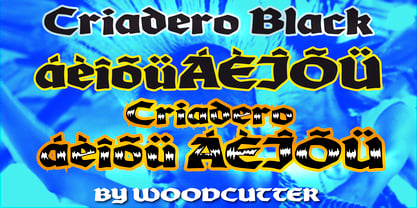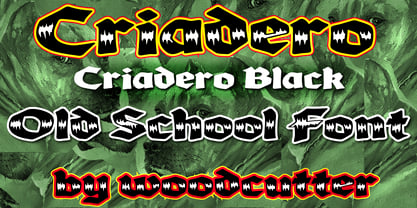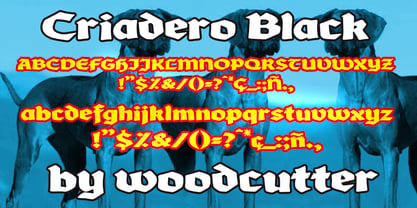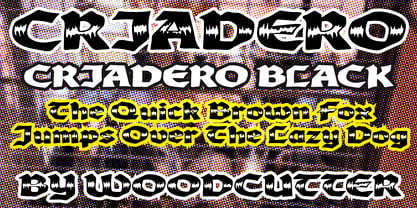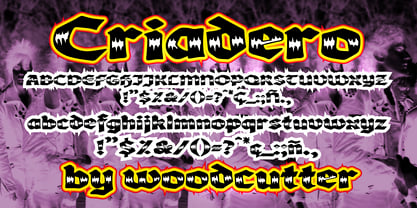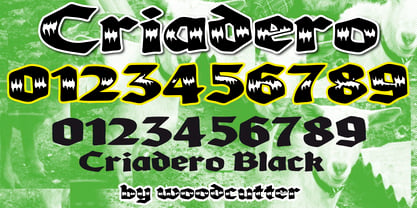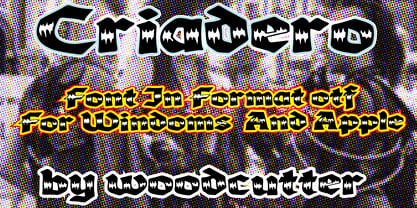
Criadero
by Woodcutter
The Criadero Font Family was designed by Jordi Manero and published by Woodcutter. Criadero contains 2 styles and family package options.
"Criadero" is a gothic-inspired type family that blends strength, tradition, and a highly distinctive graphic personality. Designed in both uppercase and lowercase with full accent support, this typeface features wide, solid, and slightly chunky letterforms that convey weight, presence, and visual stability. Its aesthetic draws from classic gothic imagery, reinterpreted through a more modern and approachable lens without losing character or expressive power. The shapes in "Criadero" are bold and substantial, with thick strokes and generous proportions, making the font highly legible even at large sizes or within dense compositions. The balance between darkness and ornamentation turns this family into a versatile tool, suitable for both traditional applications and contemporary projects with an alternative edge. The family includes two clearly defined styles. "Criadero" features letters decorated with a white shadow placed in the center of each character, creating a distinctive visual effect that adds depth, contrast, and an almost engraved or carved appearance. In contrast, "Criadero Black" presents a fully solid black version, removing all decoration to achieve a more direct, powerful, and minimalist impact. This type family is ideal for logos, posters, editorial covers, cultural branding, labels, music-related design, and any project seeking a strong, readable gothic aesthetic with a bold visual identity.
Designers: Jordi Manero
Publisher: Woodcutter
Foundry: Woodcutter